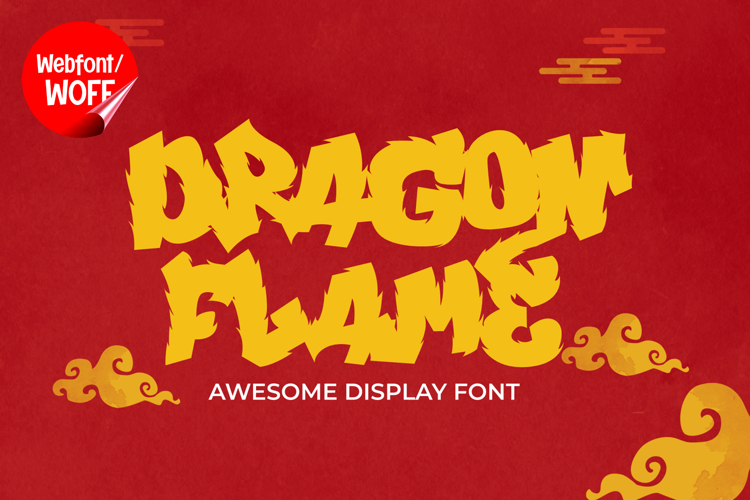
Dragon Flame | Themed Display Webfont for Fantasy Websites
Dragon Flame is a themed display webfont designed to bring a bold, fiery, and dramatic atmosphere into modern website design. Inspired by fantasy elements and flame-like shapes, this font delivers a powerful visual presence that captures attention instantly. Its stylized letterforms evoke heat, energy, and intensity, making it a perfect choice for projects that require a strong and imaginative identity.
Dragon Flame features a complete set of uppercase characters designed with flame-inspired details. Each letter has sharp edges and dynamic curves that mimic the movement of fire, creating a sense of motion and energy. These bold forms are ideal for headlines, banners, hero sections, and featured content where dramatic impact is needed. The unique shapes help content stand out and create a memorable impression.
In addition to letters, the font includes numbers and punctuation, allowing for flexible usage across different parts of a website. It works well for promotional text, event announcements, gaming interfaces, and themed content sections. Every character is designed to maintain a consistent fiery style, ensuring a cohesive visual identity throughout the design.
With multilingual support, Dragon Flame includes a wide range of accented characters, making it suitable for international websites and global audiences. This allows content to be presented clearly across different languages while maintaining the same strong and thematic style.
The themed design of Dragon Flame makes it especially suitable for fantasy websites, gaming platforms, movie promotions, creative portfolios, and entertainment-focused projects. Its fiery aesthetic adds intensity and excitement, helping websites stand out in visually competitive environments. It is also a great choice for branding that requires a dramatic and bold visual tone.
Despite its stylized and decorative appearance, Dragon Flame is designed with readability in mind. The spacing and structure of each character are carefully balanced to ensure clarity, especially in display sizes. This makes it effective for impactful headings and short content elements where both style and usability are important.
Dragon Flame is a display webfont that combines fantasy-inspired design with modern digital performance. Its flame-like details, bold structure, and dynamic energy create a distinctive typographic style that enhances website design. For projects that require a dramatic, themed, and visually powerful font, Dragon Flame offers a strong and engaging solution.